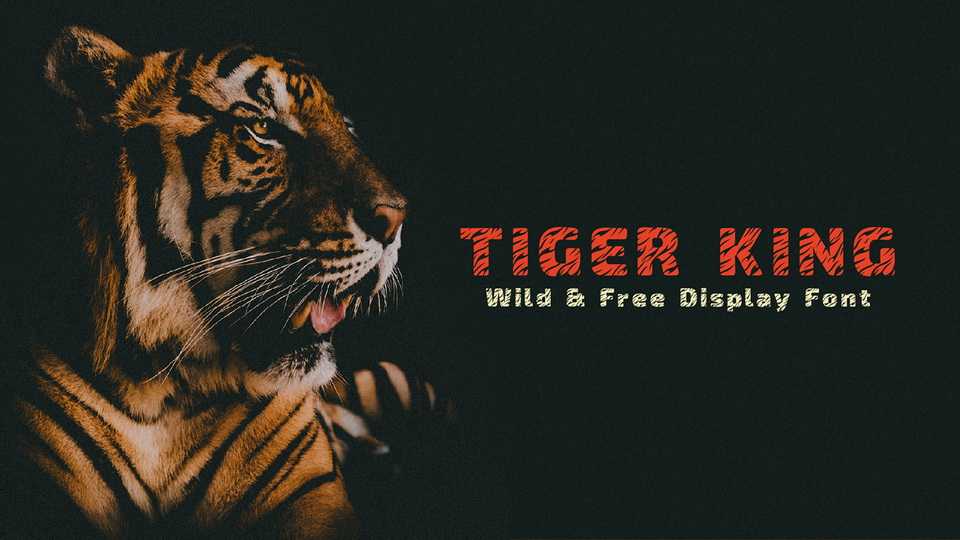
Download Tiger King font ,a creative decorative typeface with animal print texture. Tiger King looks perfect on editorial, video, graphic design or fashion.